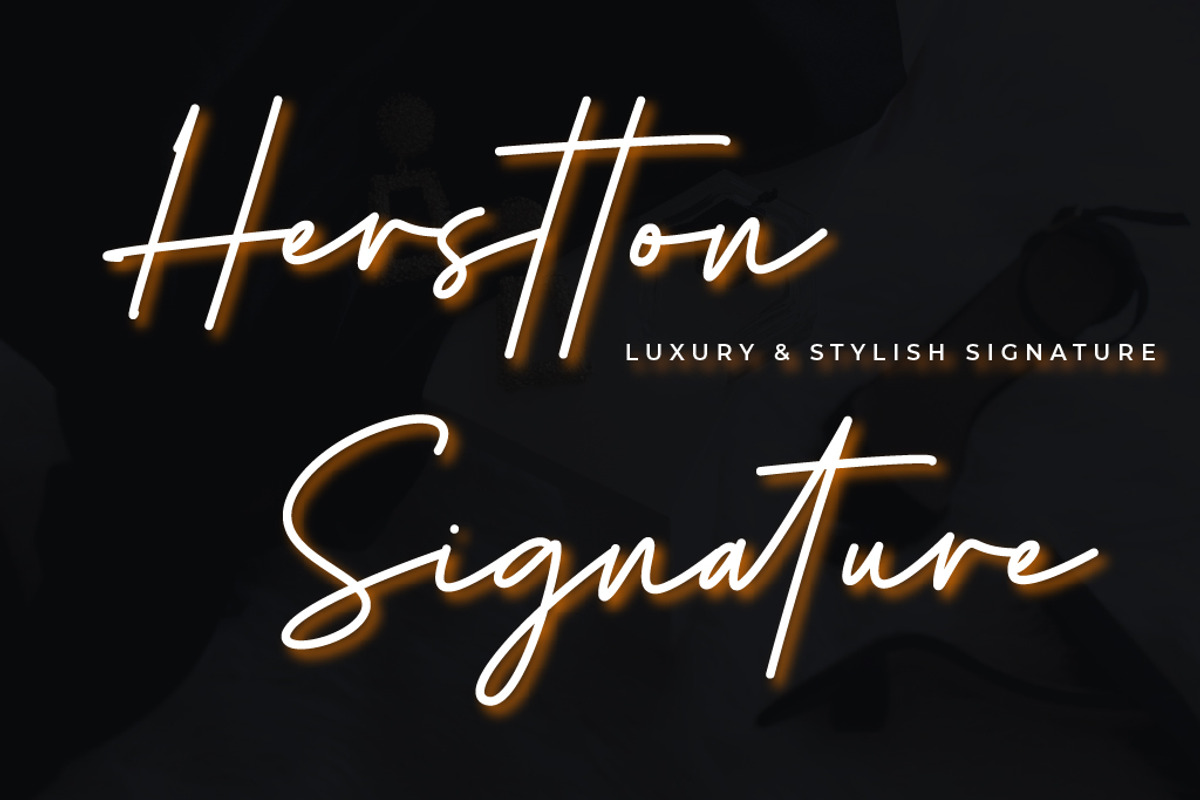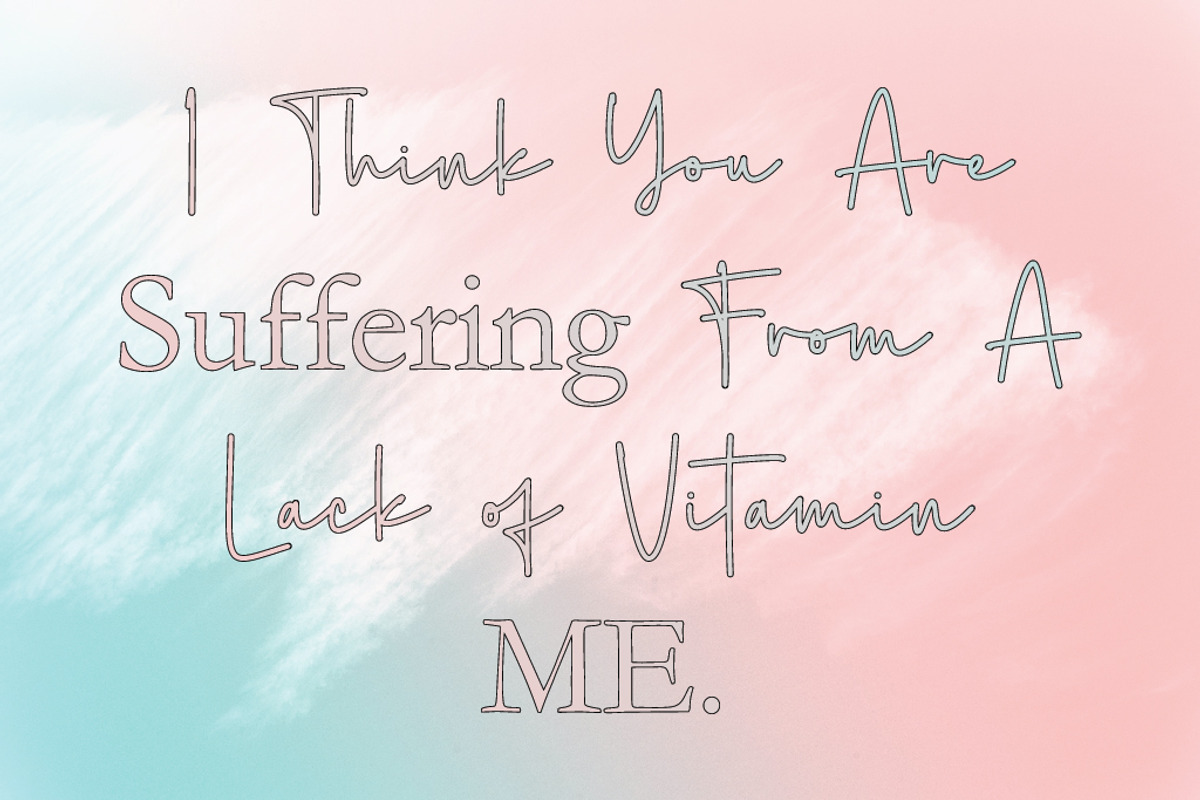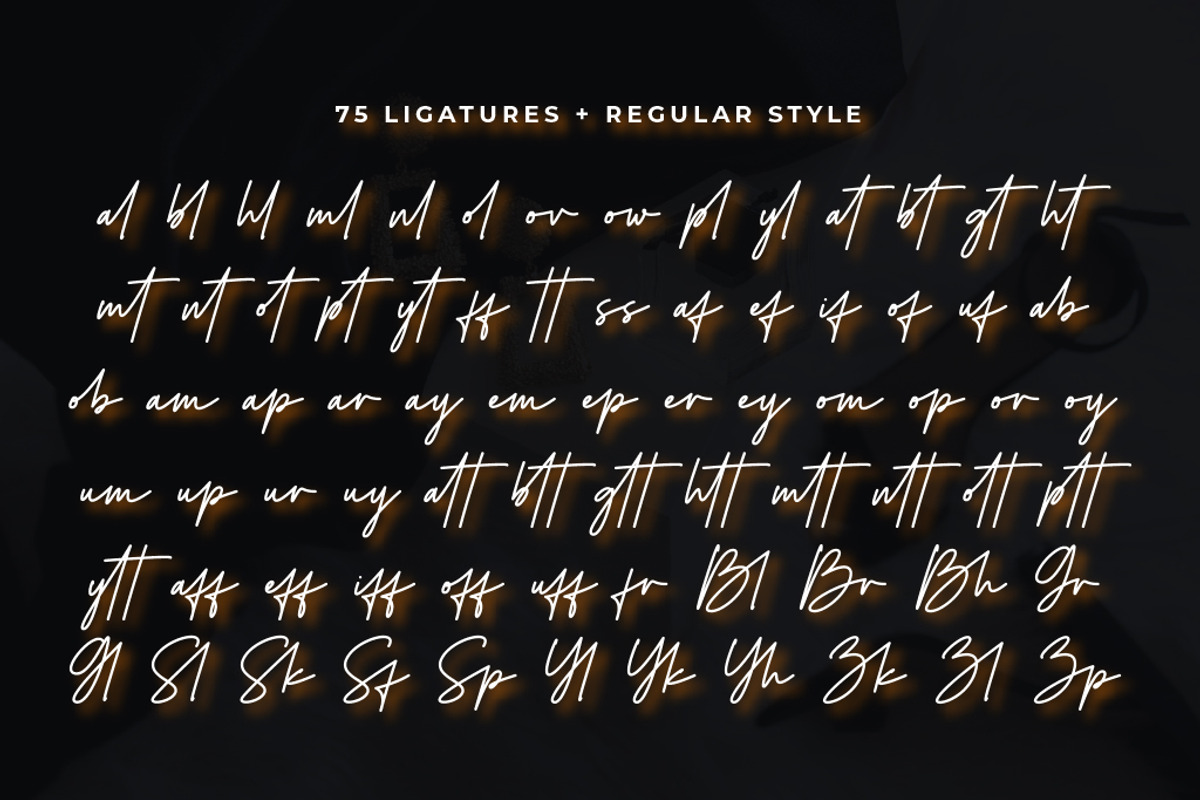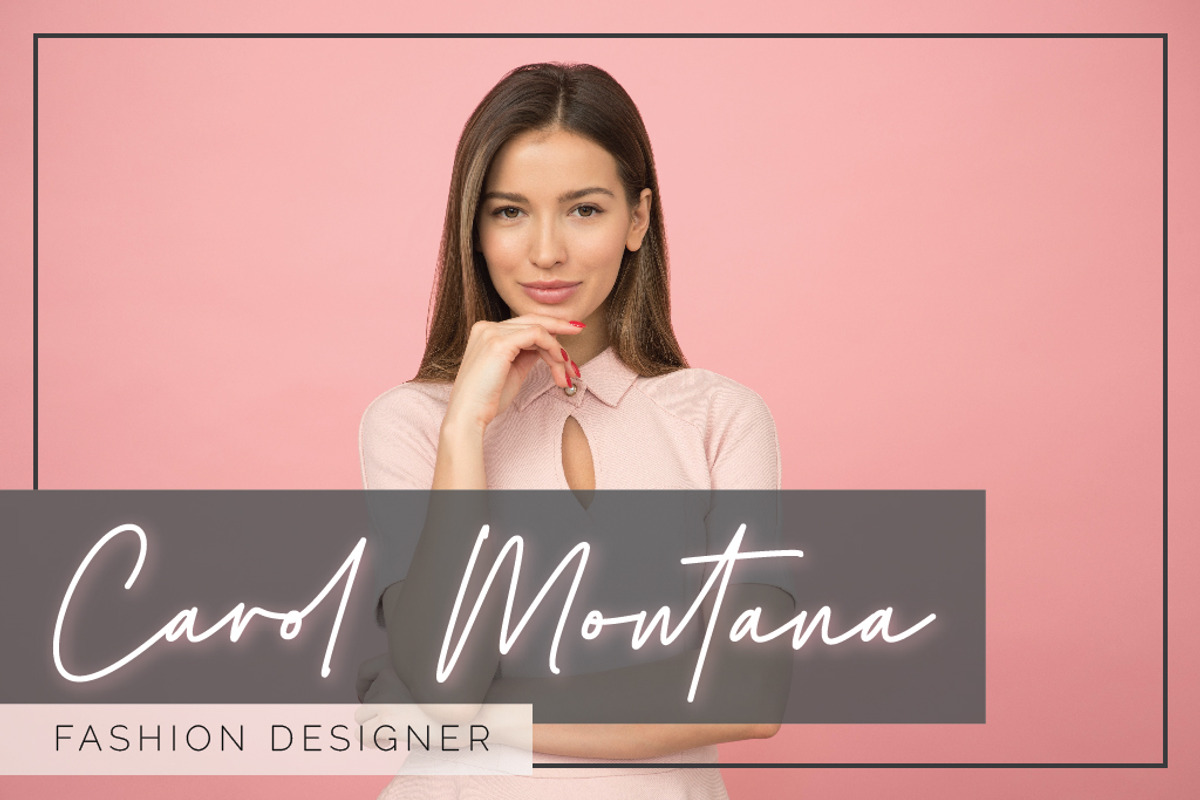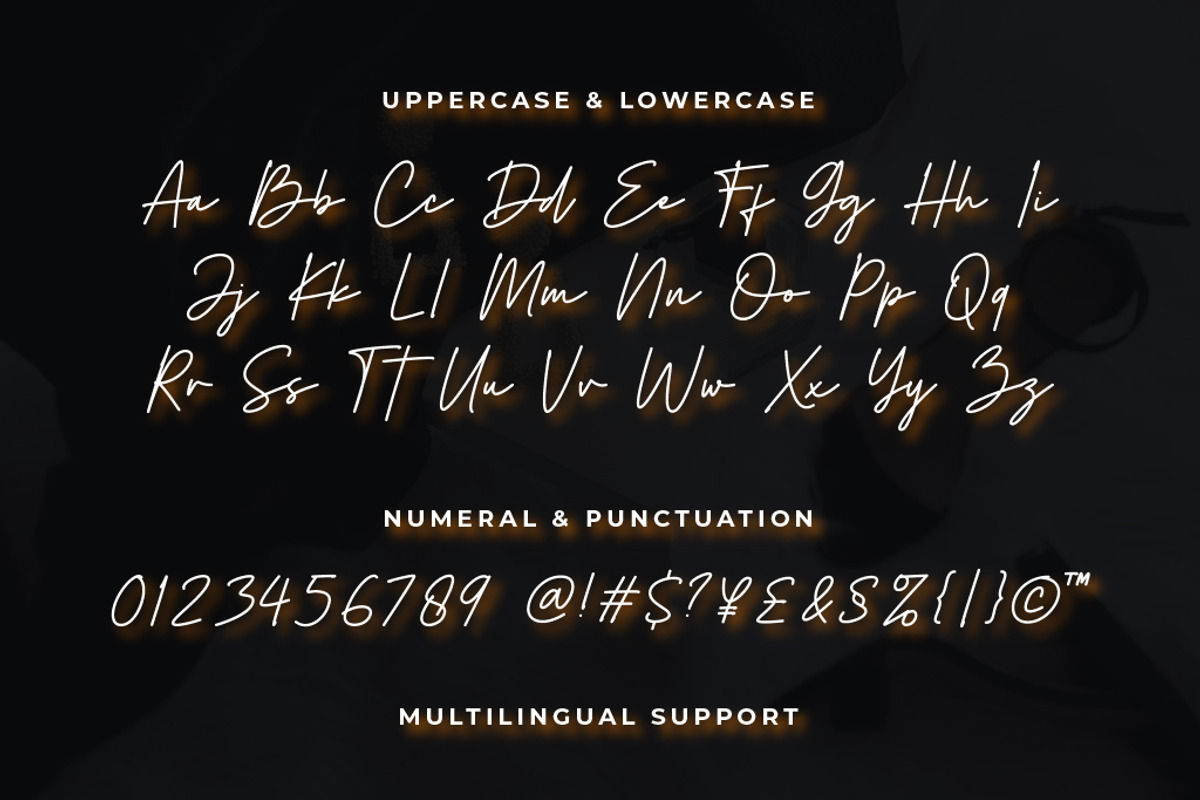
Herstton Signature Font
Herstton is a simple, fashionable signature font with a touch of elegance. With Regular and Italic styles, Herstton matches any design by adding a luxurious and minimalist feel. Herstton is compatible with many tools, such as Illustrator and Photoshop and supports multilingual features. Its elegant strokes make it perfect for product design, such as branding for a cake shop, jewelry, clothes, restaurant, print media, or anything else to communicate your brand.